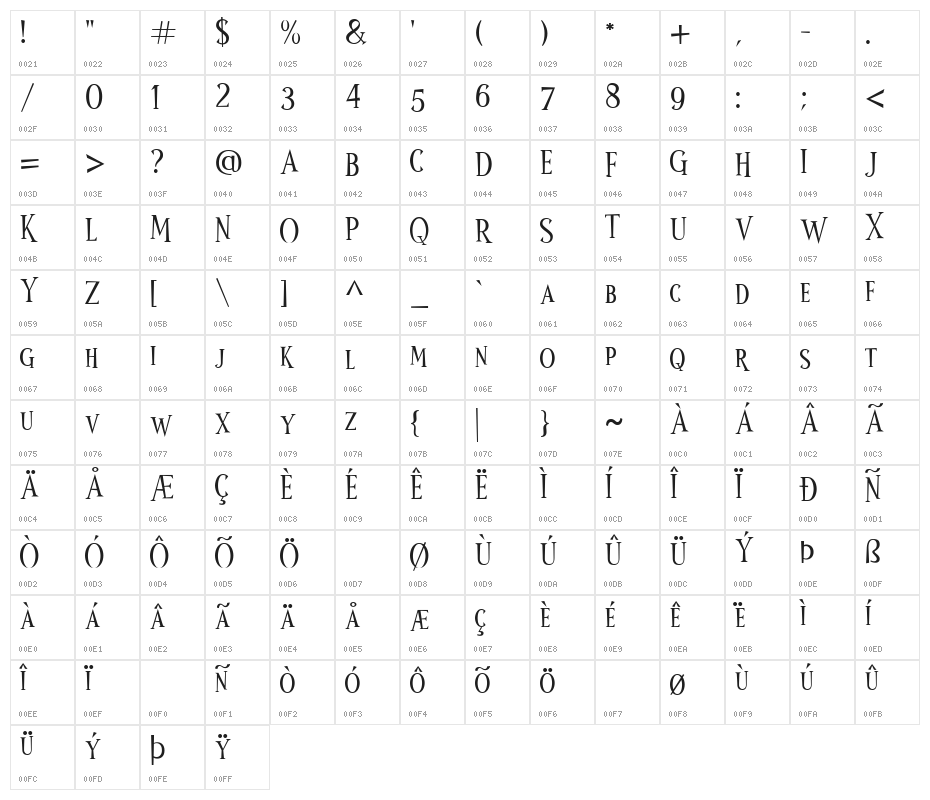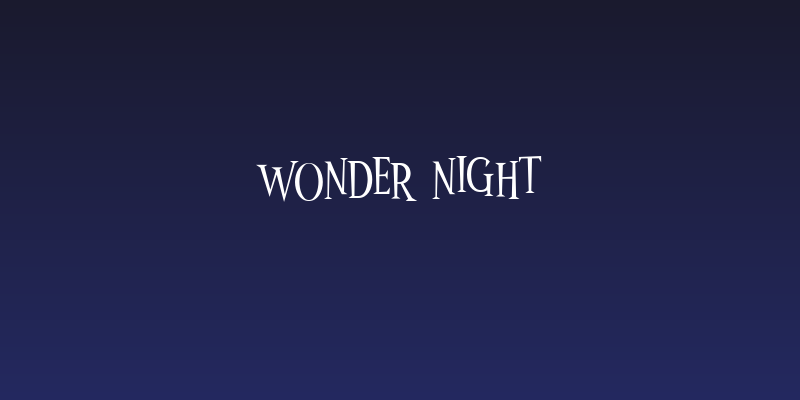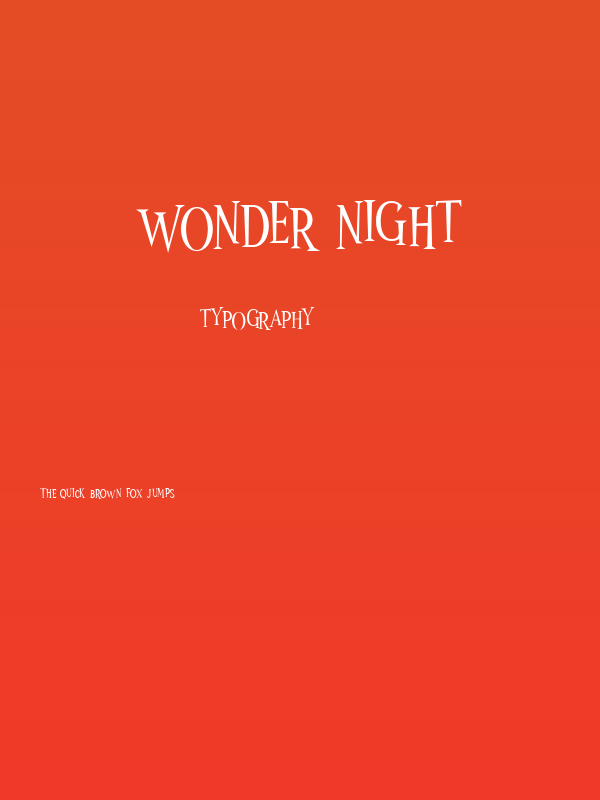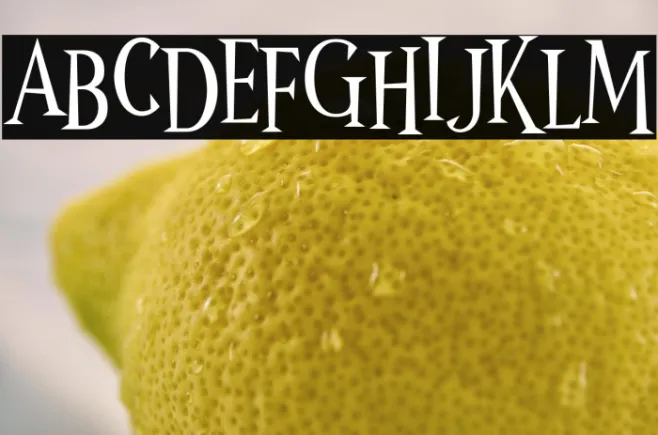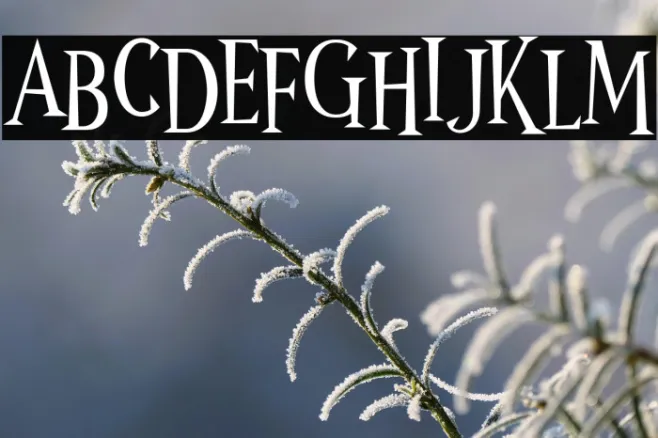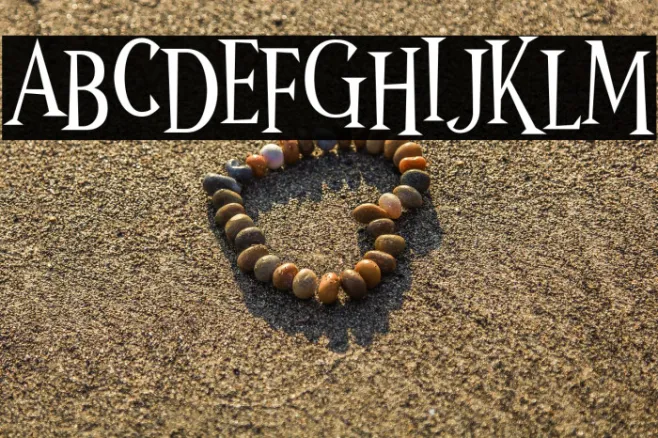
Wonder Night Font
Wonder Night Description
This font features a unique and artistic design with a whimsical flair. The characters have a hand-drawn quality, with varying stroke widths that add a playful and dynamic feel. The uppercase letters are tall and slender, while the lowercase letters maintain a consistent style, creating a cohesive look. The numerals are distinct and easily readable, complementing the overall aesthetic. Special characters are creatively designed, enhancing the font's decorative appeal. This font is perfect for projects that require a touch of creativity and elegance.
| Proposed Projects | Ideal for invitations, greeting cards, posters, and branding materials that seek a creative and elegant touch. |